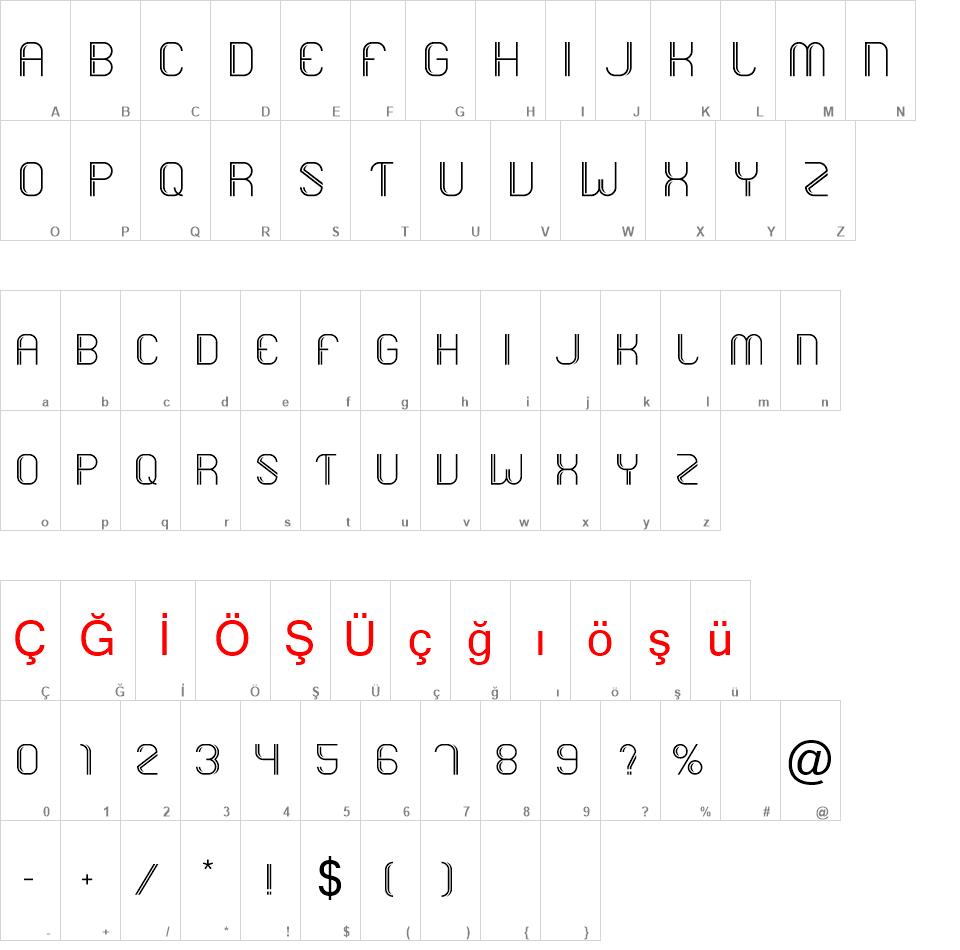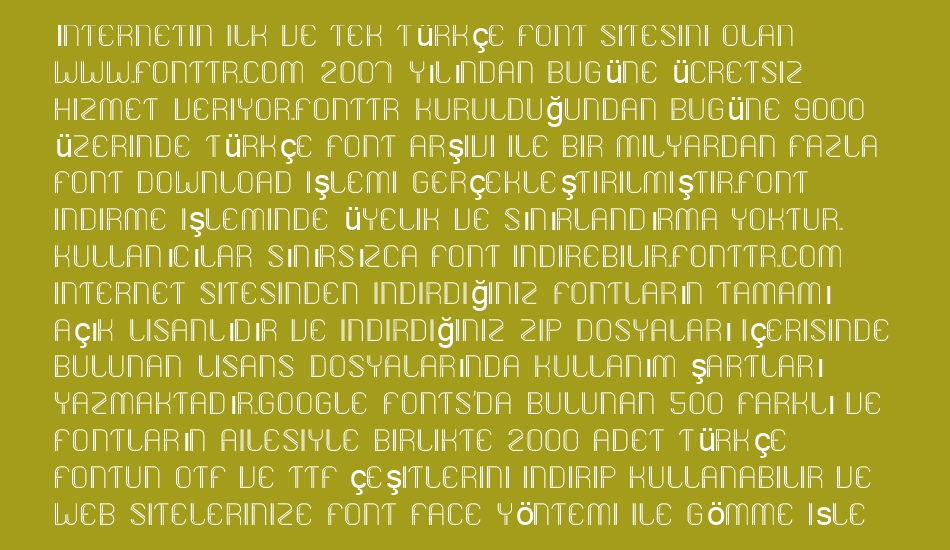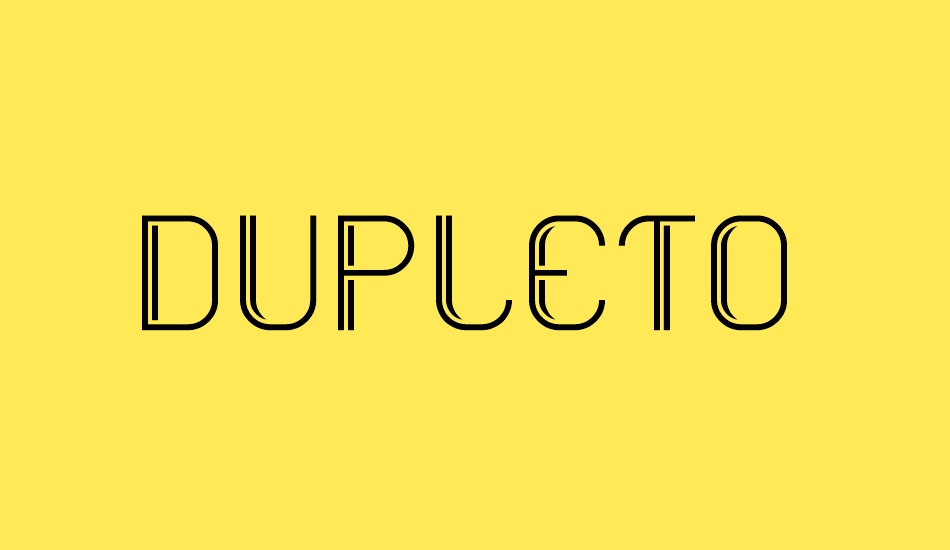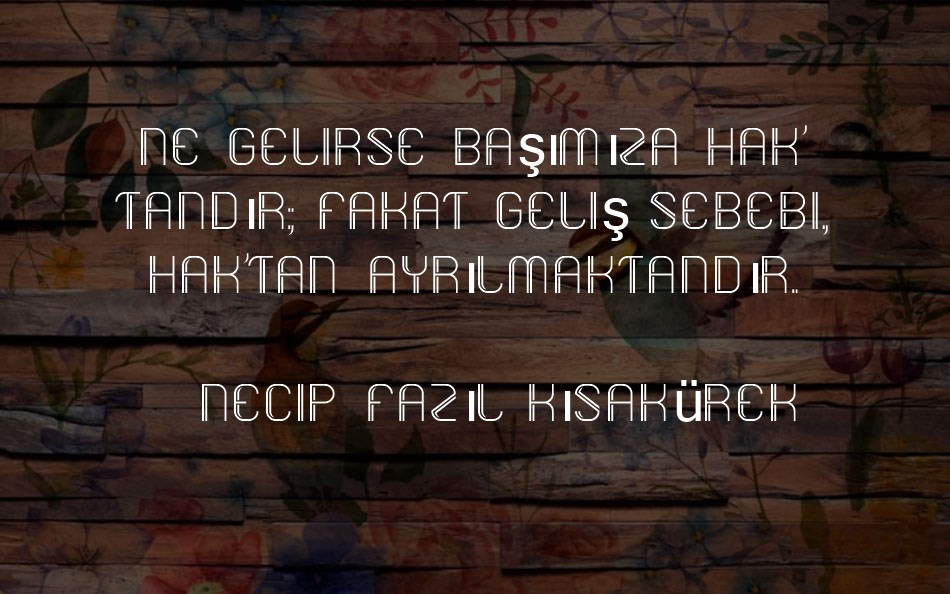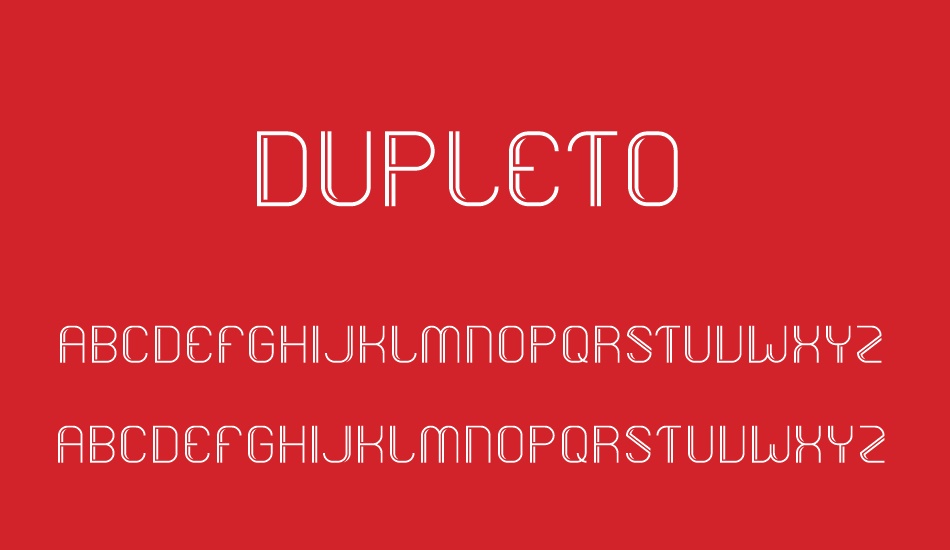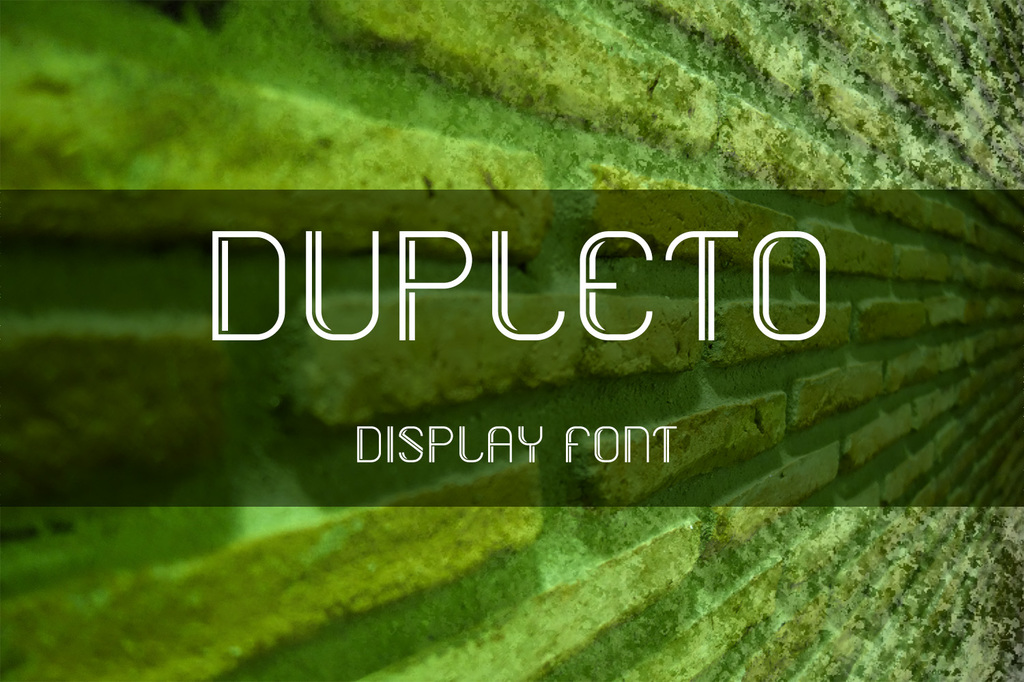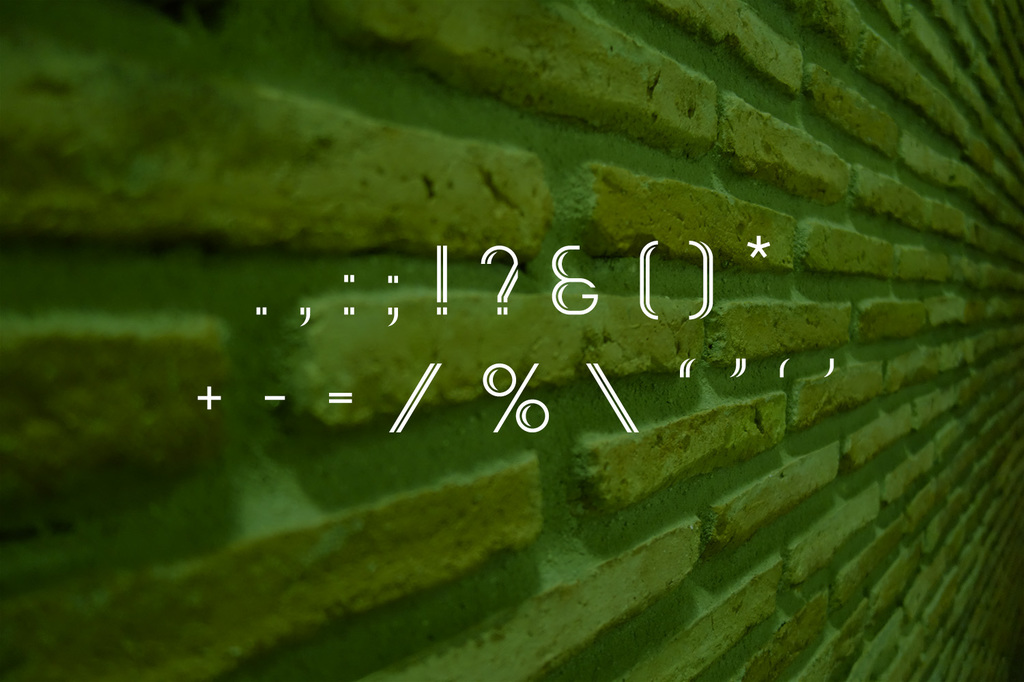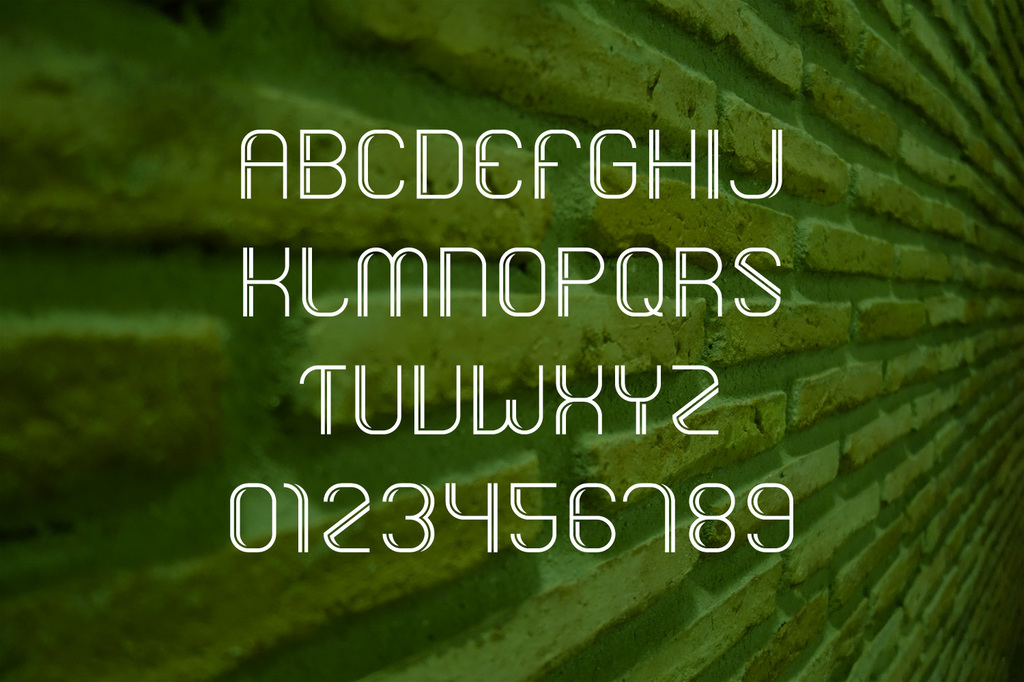
Dupleto font
Dupleto
The Dupleto is a double lined display font. It has rounded corners and is very geometric and clean. this font is free for personal use. For commercial use please visit fontbundles.net/kyo-digital-studio/30783-dupleto-display-font